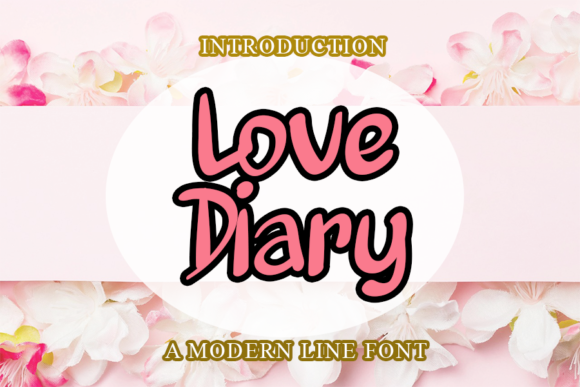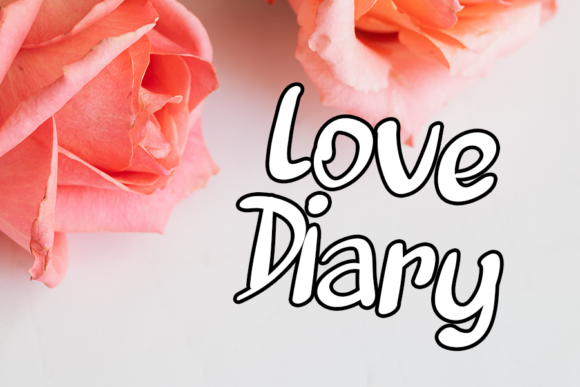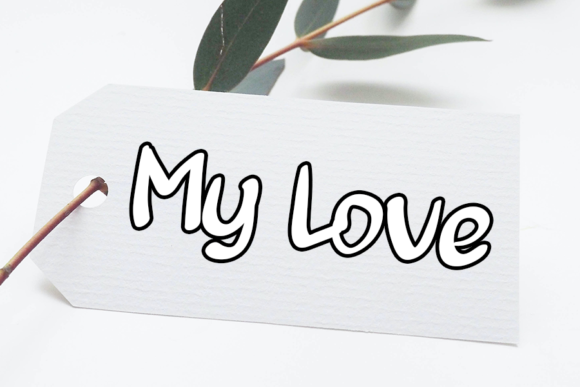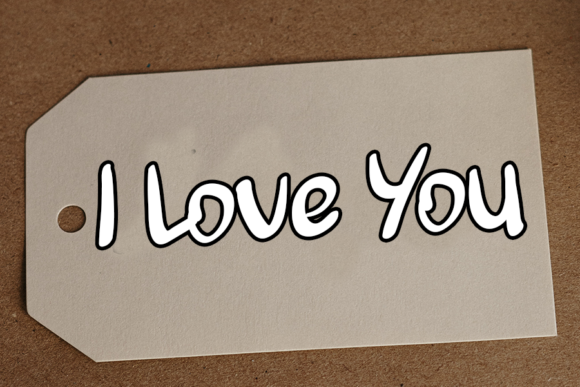
Love Diary Font
About Love Diary Font
Love Diary is a stunning handwritten font. It looks beautiful on a variety of designs requiring a personalized style, such as wedding invitations, valentines day cards, thank you cards, weddings, greeting cards, logos, and much more.